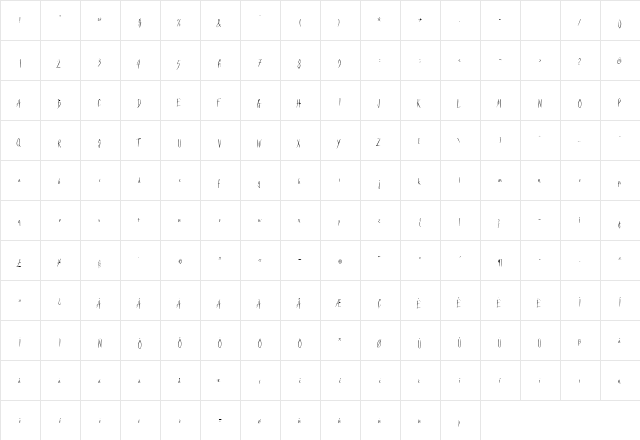
DuChirico Regular
Design Context for DuChirico Typeface
DuChirico is a composed and adaptable typeface that performs quietly and consistently across a wide range of design contexts.